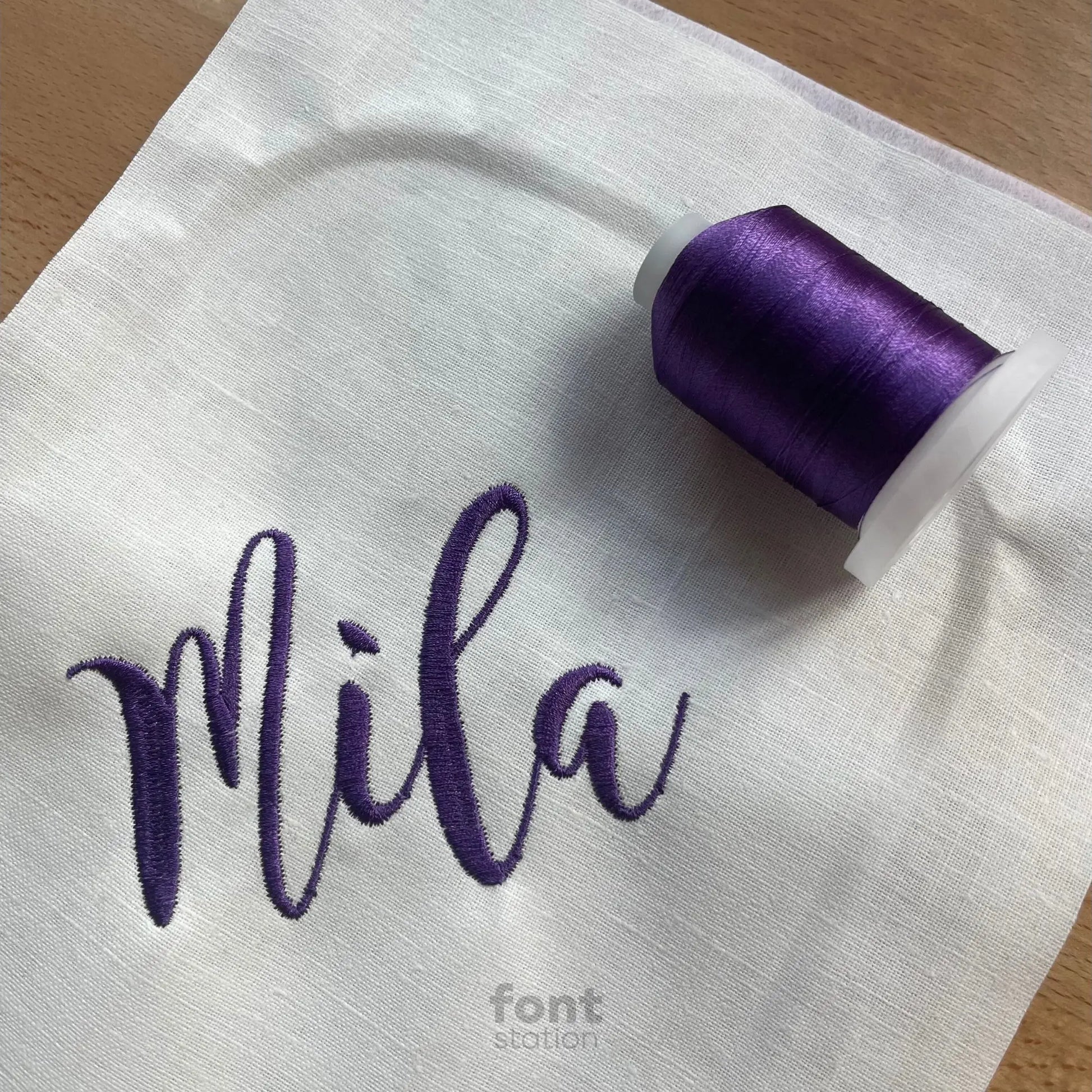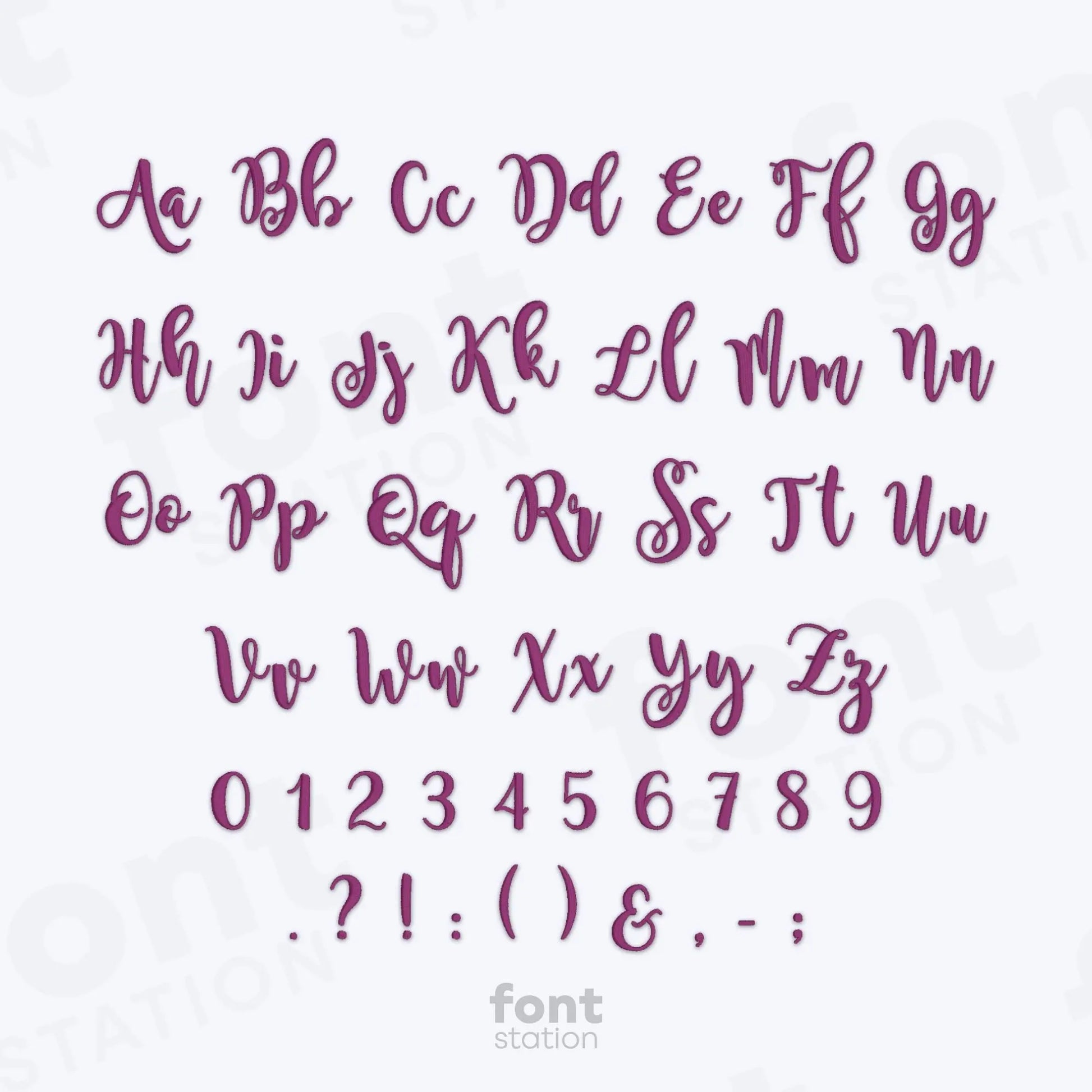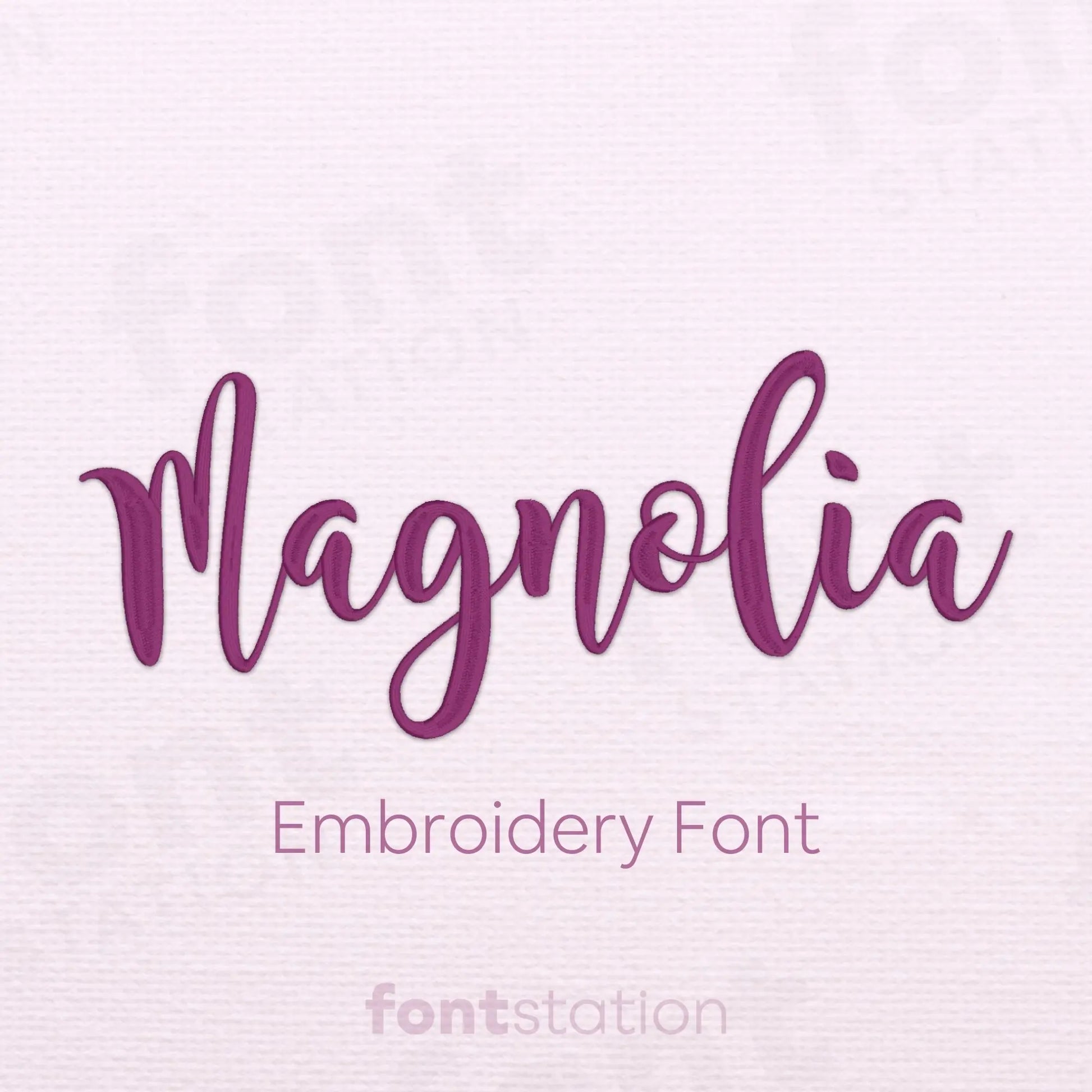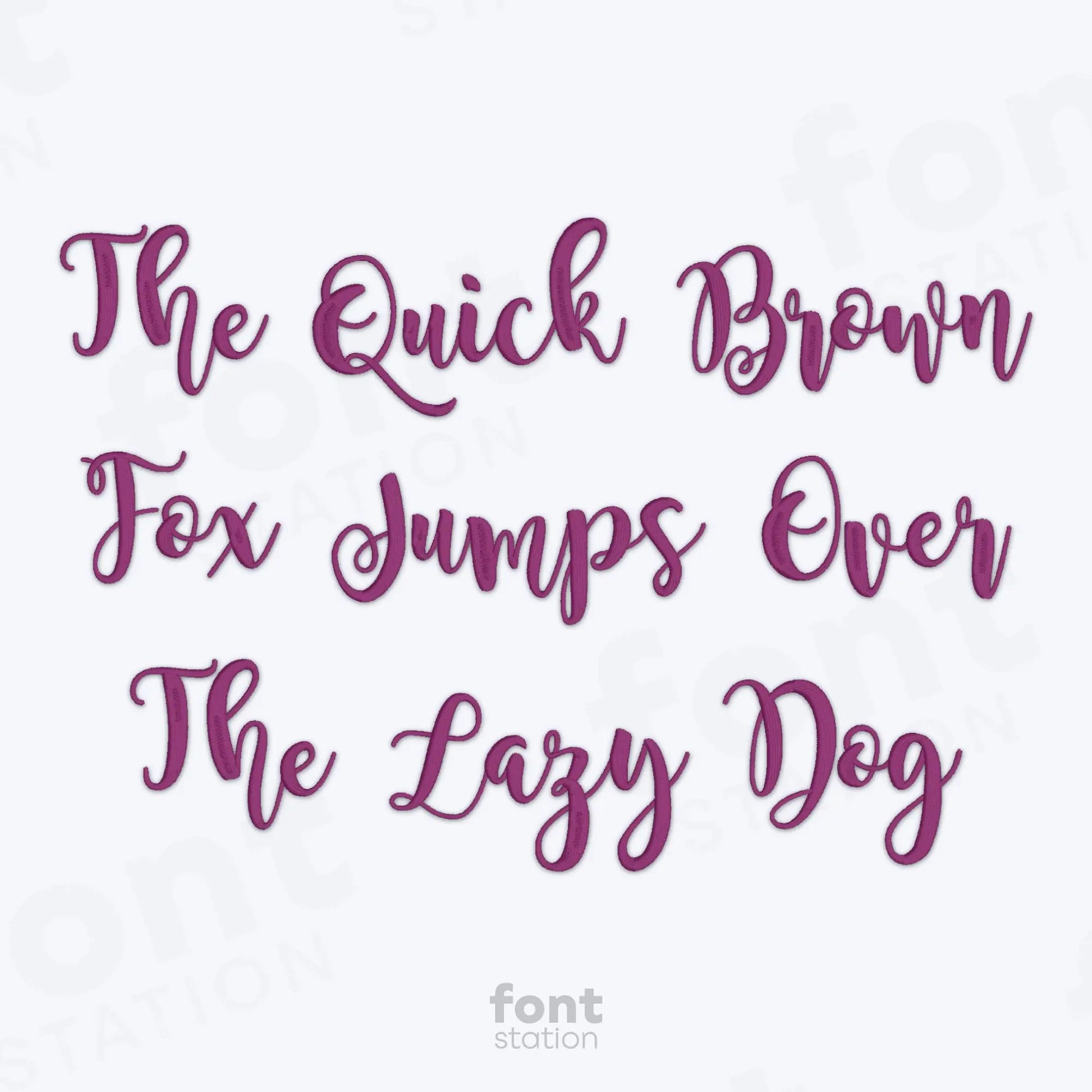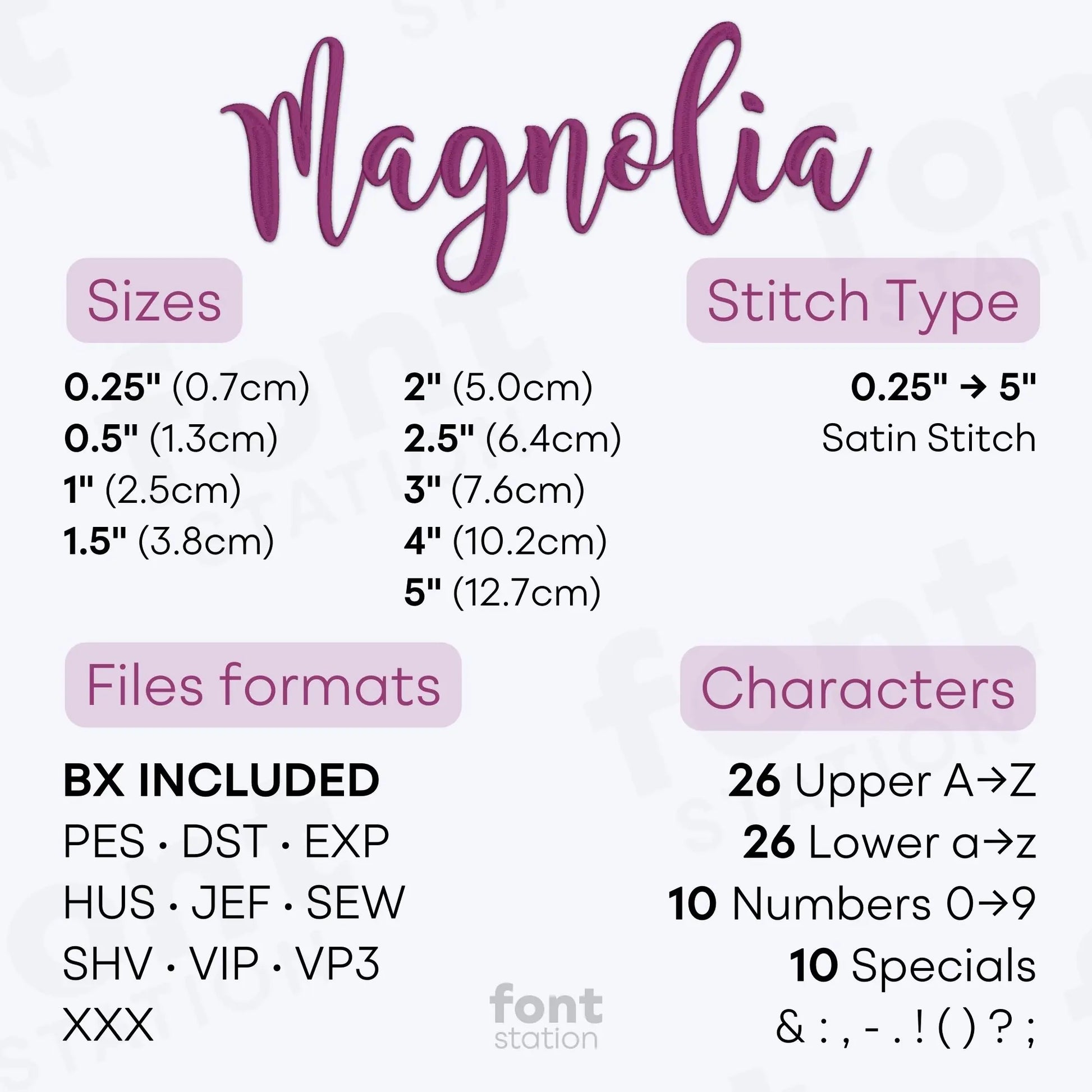
Magnolia Sky Embroidery Font
Introducing our Magnolia Sky embroidery font - a smooth, handwritten alphabet perfect to stitch elegant letters onto your next creative project. This brush script style works beautifully with your embroidery machine and adds charm to all your custom designs.
About the Magnolia Sky Embroidery Font
Our Magnolia Sky embroidery font brings smooth, handwritten elegance to your embroidery designs.
The Magnolia Sky embroidery font features a flowing brush script alphabet with beautiful curves and a natural, handcrafted feel. Perfect for names, quotes, wedding projects, and personalized gifts, this handwritten embroidery font offers stylish letters that stitch cleanly and beautifully on any embroidery machine. Digitized for flawless results, it comes in all popular formats including BX, PES, DST, JEF, EXP, VP3, HUS and more, making it a versatile choice for your next creative project.
Overall a great font for embroidery. I did run into some issues when embroidering the lowercase "m" where it would leave a small gap in the letter.